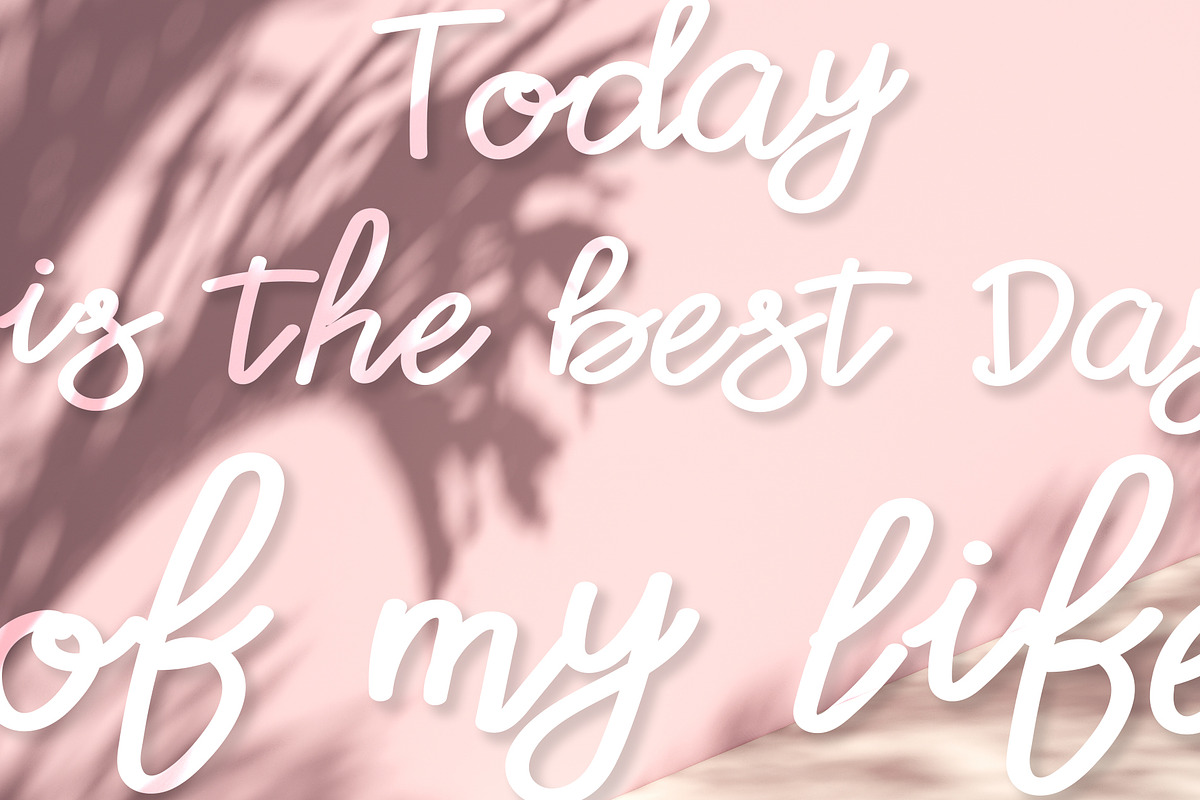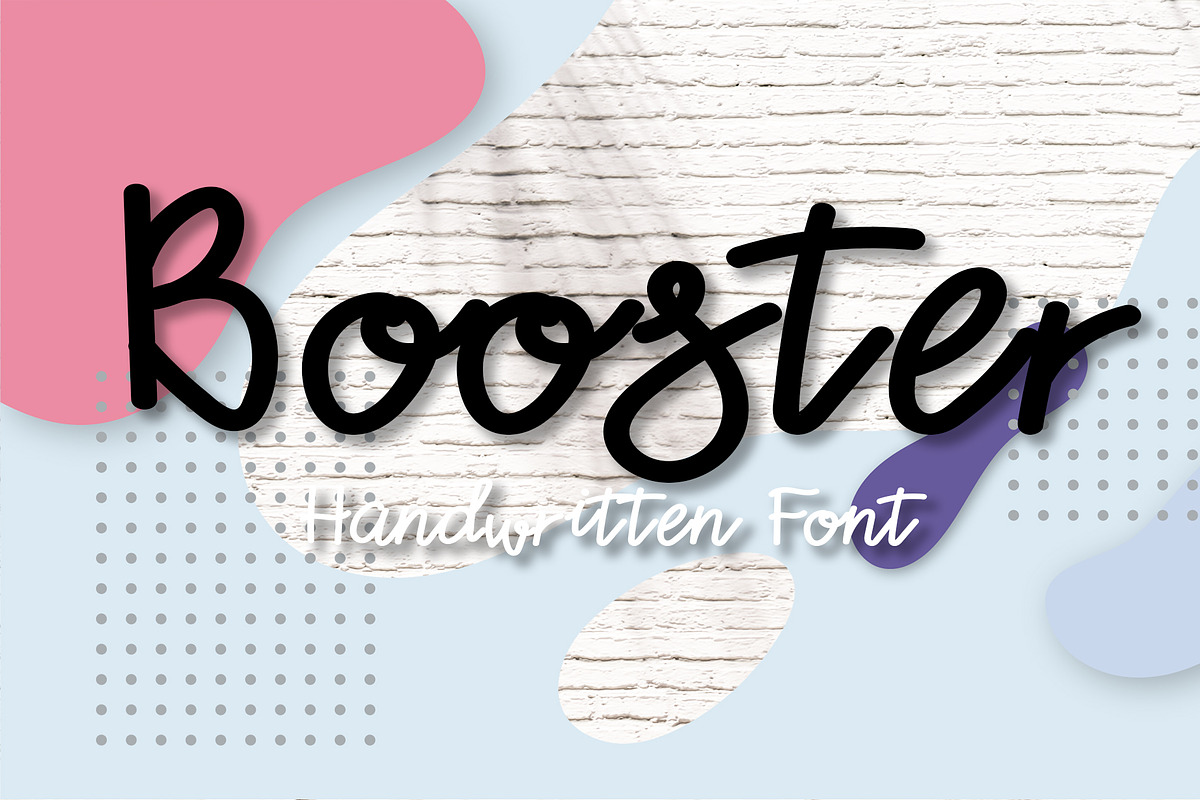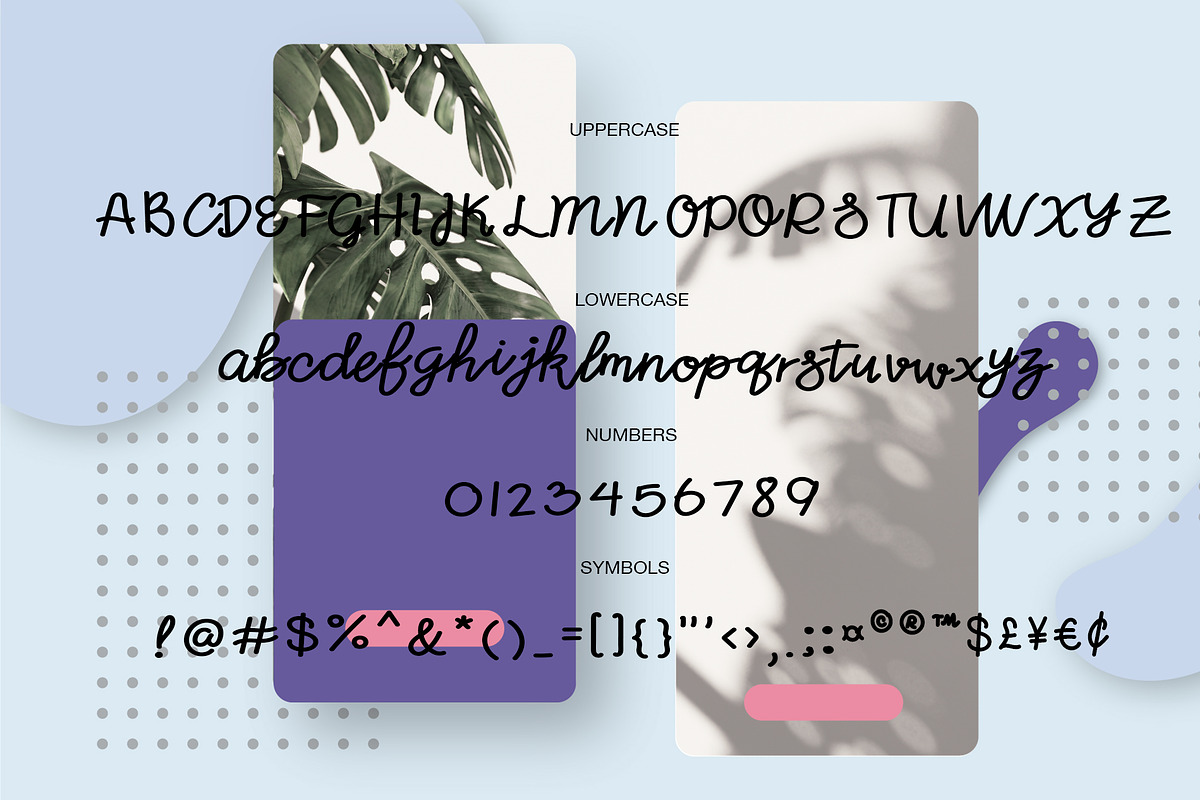
Booster font
If you are looking for a unique handwriting font, we recommend a Booster font that is a handwriting font written in the same line size, rounded and continuous. The font character style is designed to look Casual Make your illustrations or articles stand out like no other. And you will fall in love with it. Thank you
Why Booster font is worth a look
Booster font by skyclick fits naturally into Branding, posters, packaging, typography.